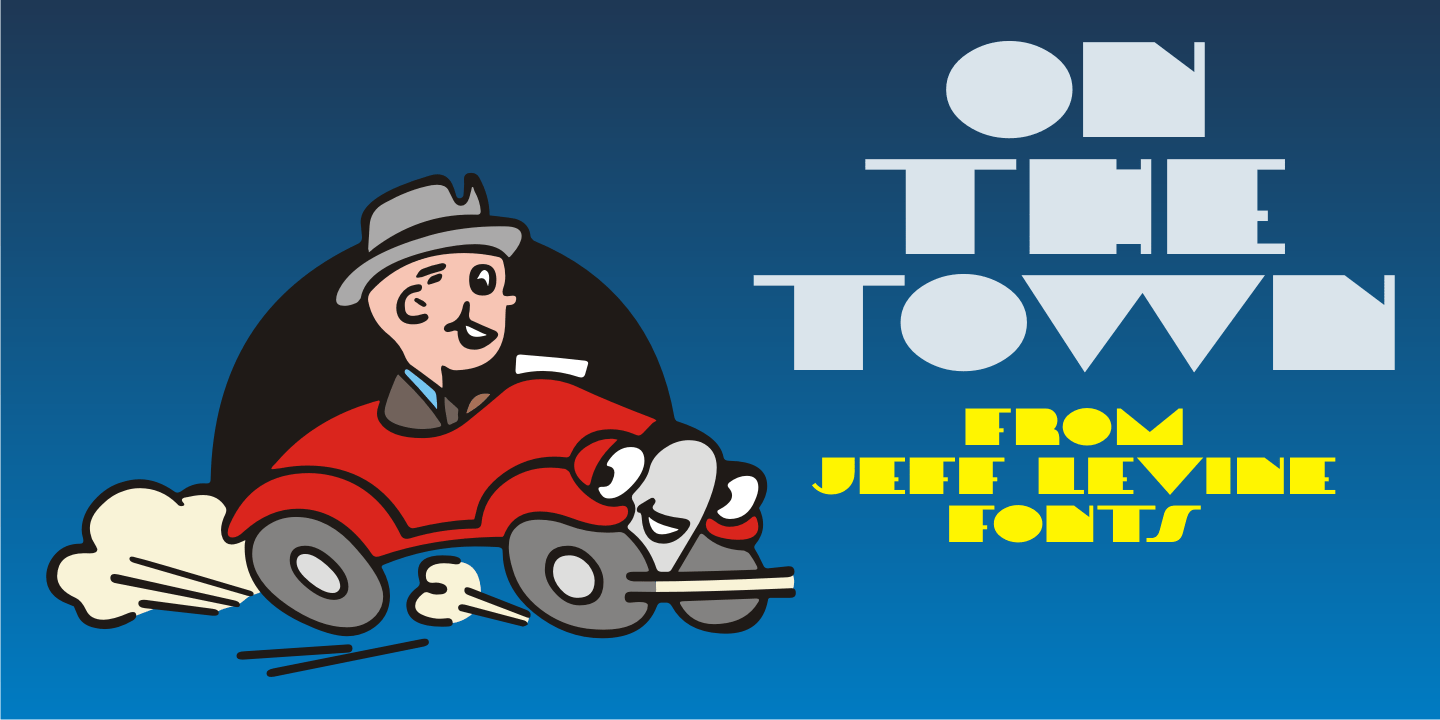
On the Town
On the Town JNL is a reworking of Parks Department JNL, giving it a classic "solid black Art Deco treatment".
The wide monoline font of the original design was inspired by hand lettering on a WPA (Works Progress Administration) poster.
Art Deco typography and the streamlined style it embraced often conjures up images of New York City in the 1930s and 1940s, thus On the Town JNL is named for the classic MGM musical starry Gene Kelly, Frank Sinatra and Jules Munchen that was filmed on location in "the city that never sleeps".